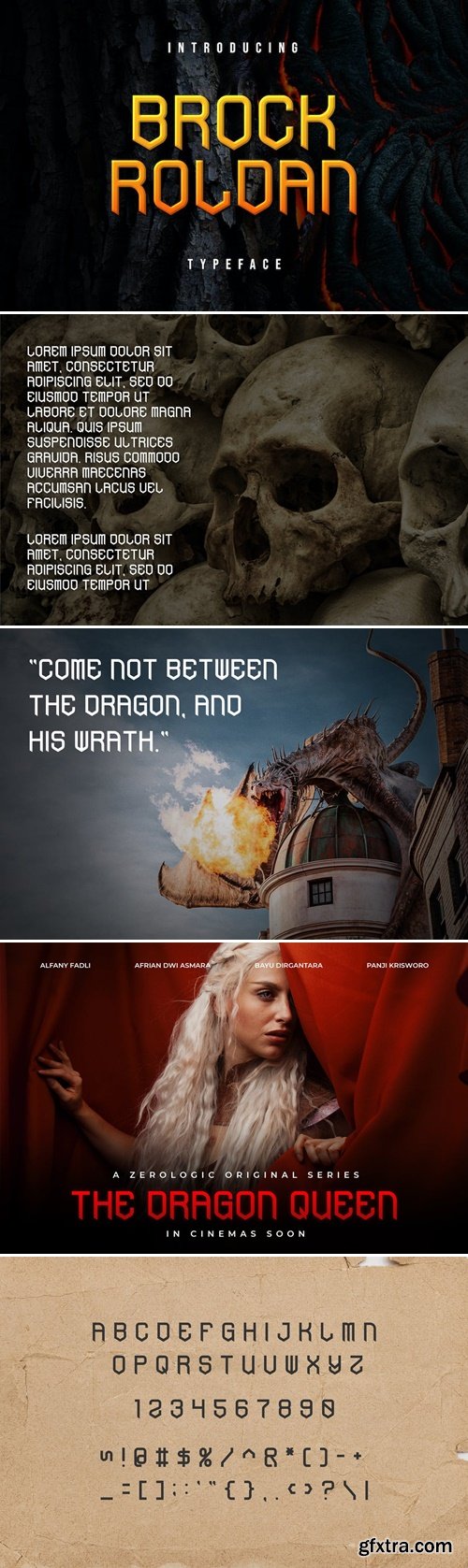
Brock Roldan Typeface Font
Brock Roldan is a modern sans serif font that we designed with original touch for your needs. This cool font is complete with Uppercase, Lowercase, Numeric & symbols. This very strong and sharp font is perfect for titles, typography, posters, magazines, brochures, packaging, Websites and much more for your design needs, making your designs more cool.